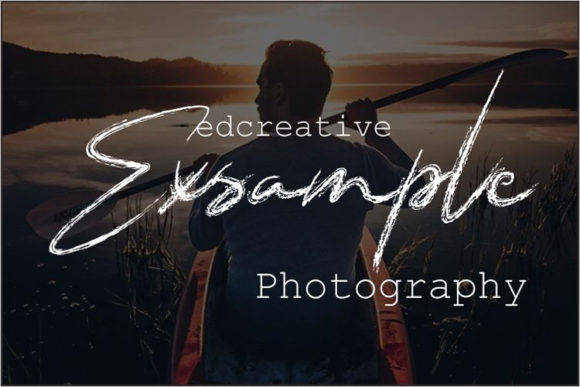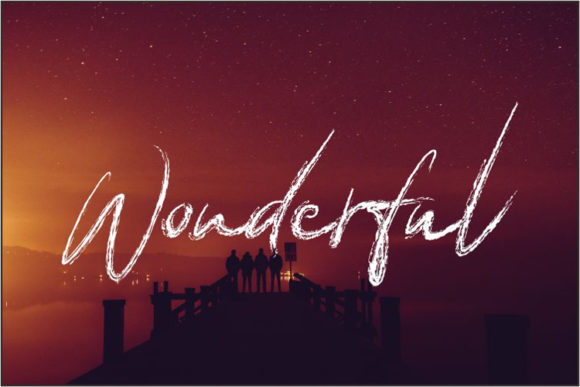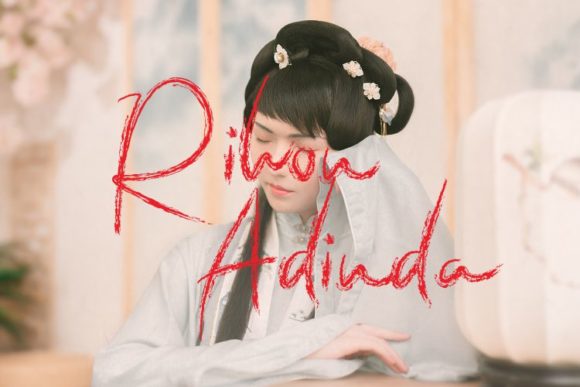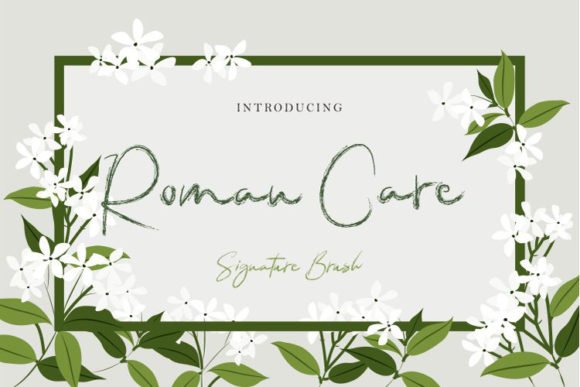
Introduction to Roman Care Font
Roman Care is a beautiful and carefully crafted handwritten font with a bold feel.
It will turn any design project into a stand out .
Roman Care Font offers exceptional quality and versatility, making it a valuable addition to your design toolkit. Whether you’re creating for personal projects or commercial use, Roman Care Font delivers professional results.